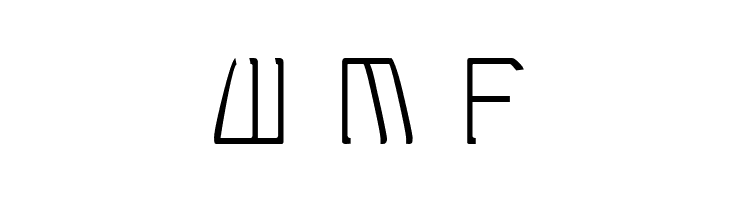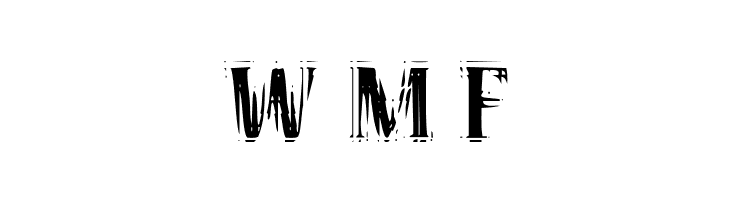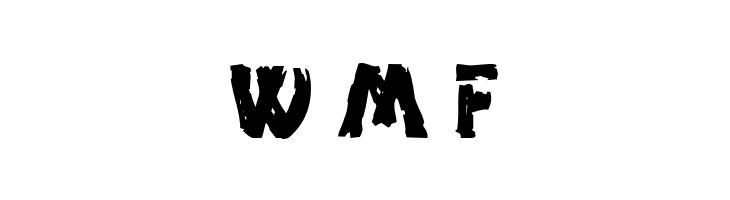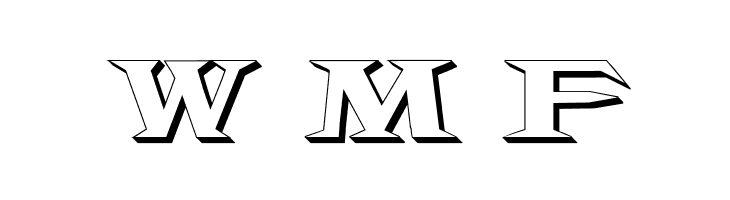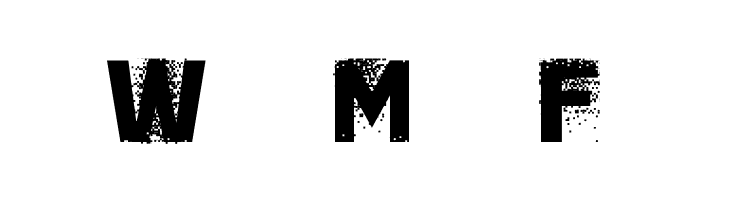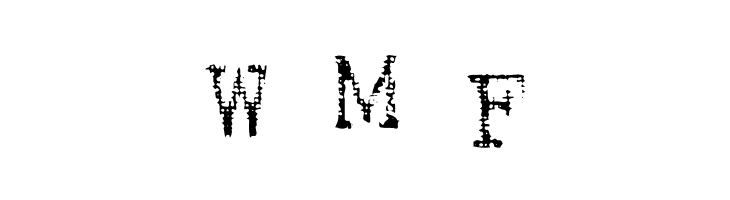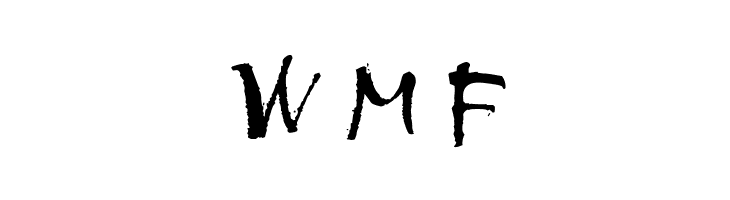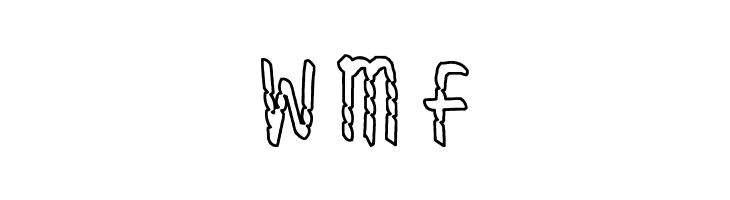
A bold, playful font with a thick outline and bubble-like appearance.
A bold, futuristic font with sharp, angular edges and a solid, block-like appearance.
A jagged, edgy font with a hand-drawn appearance and sharp, angular lines.
A sleek, modern oblique font with thin, elongated characters and a dynamic appearance.
A distressed, grungy font with a rugged, eroded appearance.
A bold, distressed font with a cracked texture and rugged appearance.
A bold, chaotic, and jagged font with a distressed, hand-drawn appearance.
A distressed, grunge-style font with a textured, vintage appearance.
A bold, textured script font with a cracked, distressed appearance.
A vintage-style font with a distressed, letterpress appearance.
A geometric, block-like font with a modern, digital appearance.
A bold, jagged font with sharp, thorny edges and a striking appearance.
A bold, geometric font with a modern and clean appearance.
A bold, decorative font with an organic, liquid-like appearance.